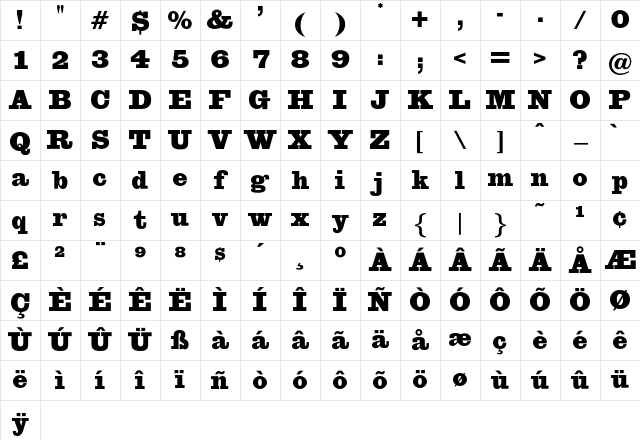
OPTIEgiziano Normal
Design Context for OPTIEgiziano
OPTIEgiziano is a composed and adaptable typeface that performs quietly and consistently across a wide range of design contexts.
Pro Tip: Use OPTIEgiziano in both headline and body roles to test its range before committing to a single application.